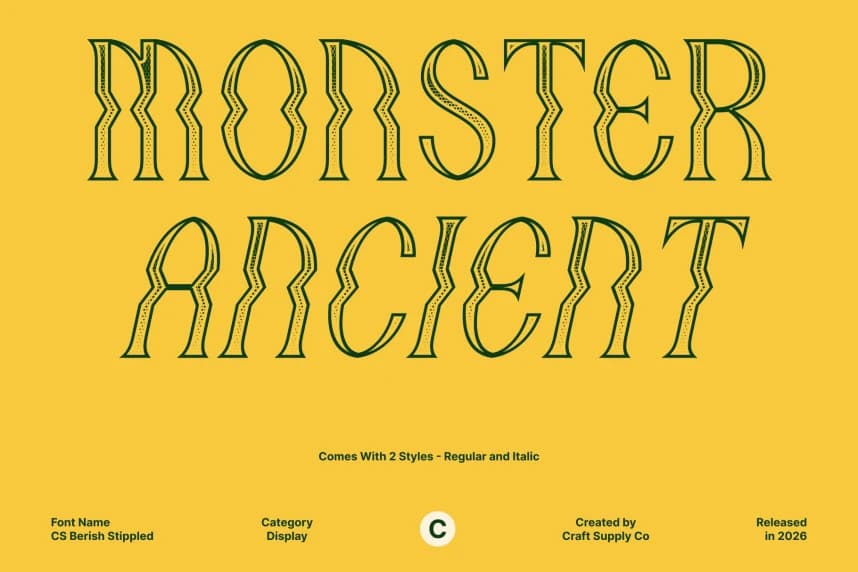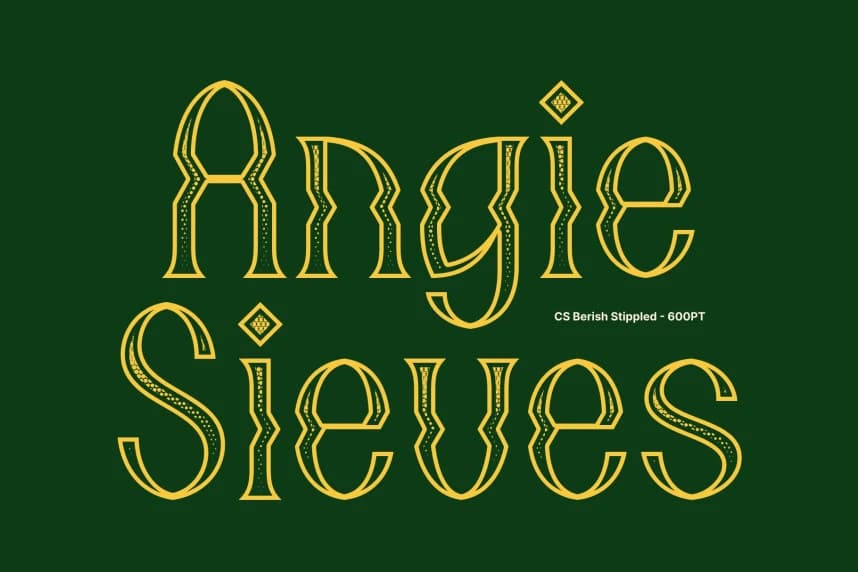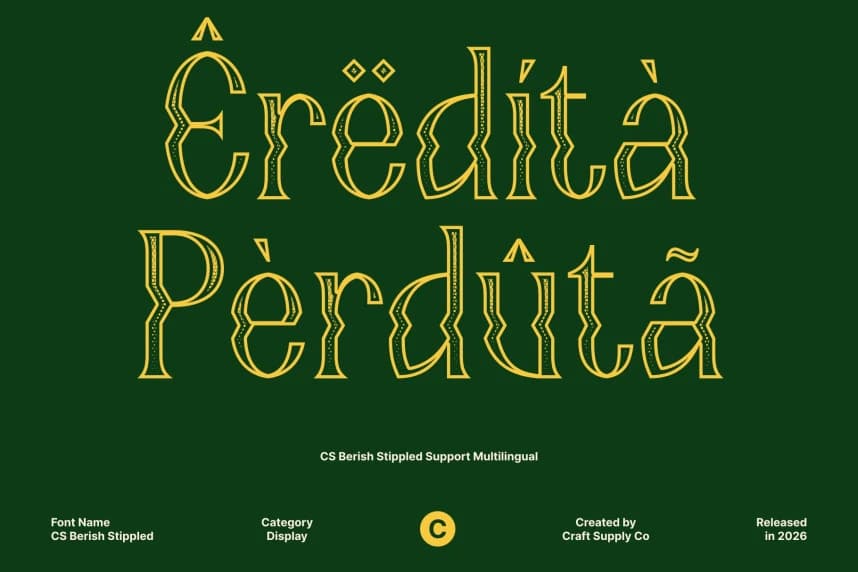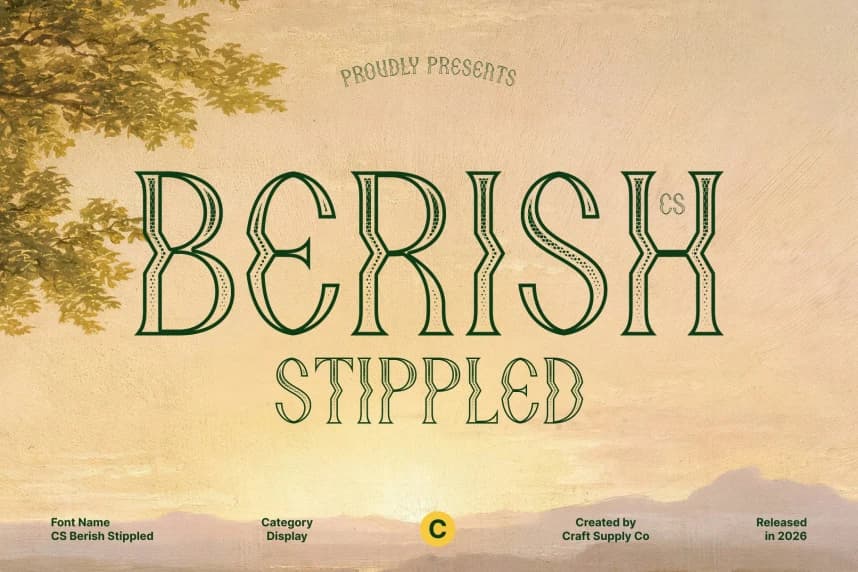
CS Berish Stippled Font – Psychedelic Display Serif Font Modern Psychedelic Meets Textured Classic Serif. This is a display serif font that fuses timeless serif sophistication with bold, contemporary psychedelic forms now elevated with a dense stippled texture.